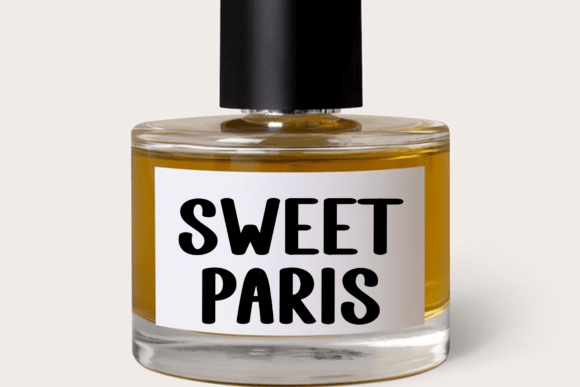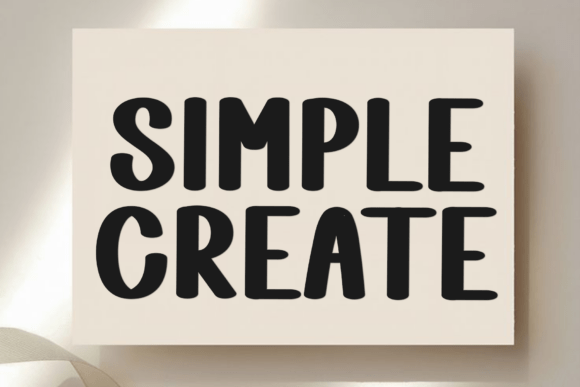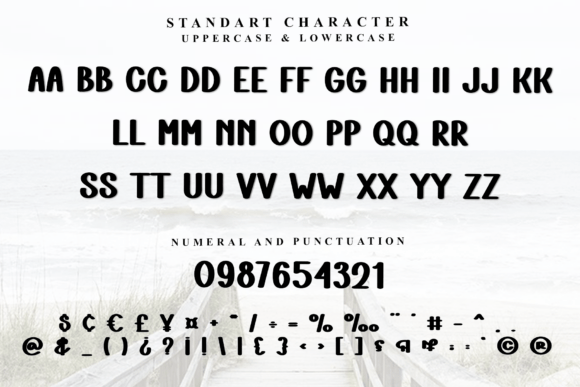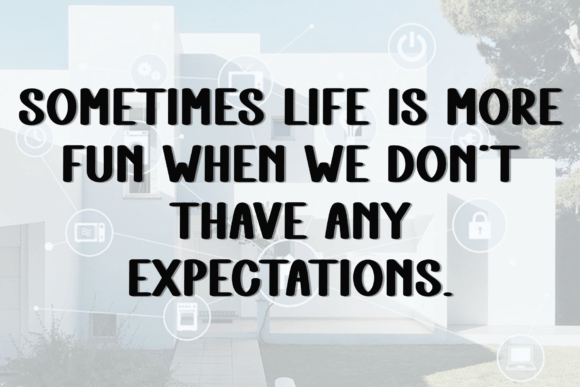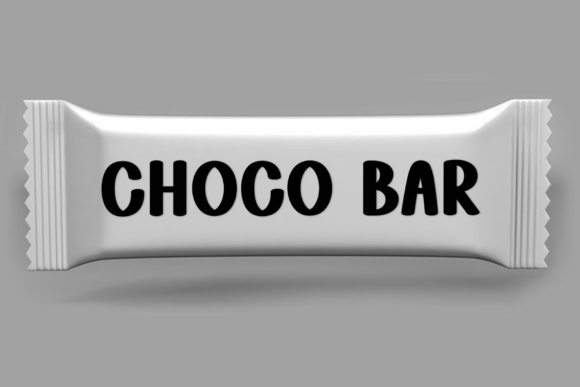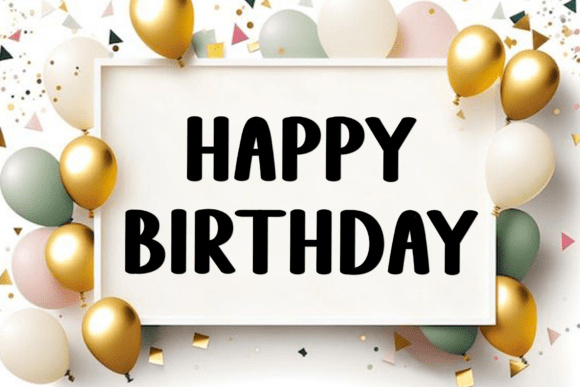
The Perfect Match for Your Creative Projects
Have you ever stared at a blank page, struggling to find the right words to bring your design to life? The blank canvas can be daunting, but what if you had the perfect tool to spark your creativity? For designers, finding that special font that captures the essence of their vision is a game-changer. Enter Choco Lips Font, a stunning and versatile font that adds a touch of warmth and character to any project.
With its soft, unique strokes and distinctive character, Choco Lips Font is the perfect companion for designers seeking to create memorable designs. Its adaptability across various applications and platforms makes it a valuable asset for any creative project. Whether you’re working on a craft, design, or other artistic endeavor, Choco Lips Font is sure to elevate your work and leave a lasting impression on your audience.
Choco Lips Font Key Features
- Font Family: Choco Lips is a sans-serif font family with a unique, playful twist.
- Unique Characteristics: Choco Lips features a distinctive rounded edge and a subtle, hand-drawn feel that sets it apart from other sans-serif fonts.
Choco Lips Font Review
Overall, I have mixed feelings about the “Choco Lips Font”. While it has some lovely qualities, it also has some limitations that make it less than perfect. ✨
- Unique and playful aesthetic: The font has a distinctive, whimsical feel that’s perfect for brands that want to stand out.
- Highly legible: Even at smaller sizes, the font remains easy to read, making it suitable for body text.
- Customizable: The font comes in a range of weights and styles, allowing designers to tailor it to their specific needs.
However, there are some issues to consider:
- Overly sweet: Some users might find the font too saccharine or childish, which could be a turn-off for more serious brands.
- Lack of versatility: While the font is great for playful brands, it might not be the best choice for more formal or professional projects.
- Some letterforms can be awkward: Certain letters, such as the “k” and “q”, can look a bit clumsy or uneven.
Overall, I think the “Choco Lips Font” is a solid choice for designers who want a playful, eye-catching font. However, it’s not a one-size-fits-all solution, and users should carefully consider their project’s needs before making a decision.
For a unique look, try pairing Choco Lips with other bold fonts for contrasting headings.
For a cohesive look, use Choco Lips in combination with other fonts in your design.
For a polished look, use Choco Lips in headings and subheadings to draw attention.